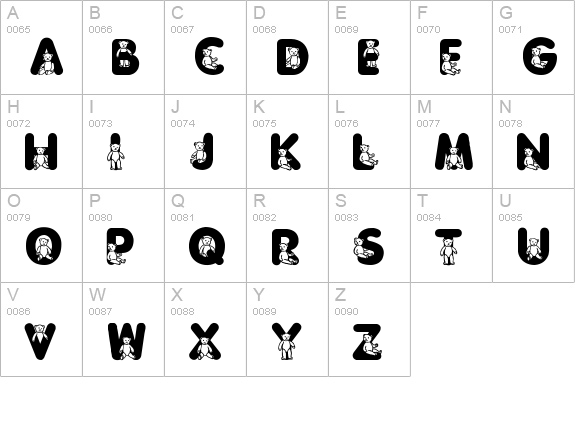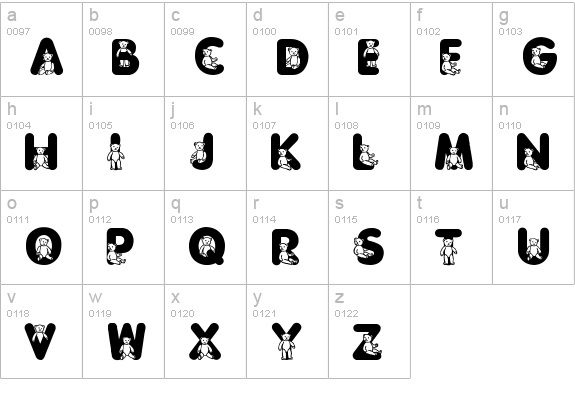
Sassys Teddys 3 Font Details
Introducing Sassys Teddys 3, a whimsical and delightful font that will add a touch of playfulness to any project. This font is perfect for those who want to bring a sense of charm and nostalgia to their designs. With its cute and cuddly letterforms, Sassys Teddys 3 captures the essence of childhood and brings it to life on the page. But what makes Sassys Teddys 3 truly special is that it is completely free! Yes, you read that right. This font is freely available to download at FontsMarket.com, allowing you to bring a smile to your audience without breaking the bank. Whether you're working on a children's book, a greeting card, or a branding project, Sassys Teddys 3 will be your go-to font for adding that extra touch of sweetness. With its smooth curves and adorable details, Sassys Teddys 3 is sure to capture the hearts of both young and old. Its versatility allows it to be used in a variety of contexts, from invitations to posters, from logos to packaging. Let your creativity soar as you explore the endless possibilities that this font offers. So why wait? Download Sassys Teddys 3 today and let it bring joy and warmth to your designs. With its freely available download at FontsMarket.com, you can start using this font right away and share your creations with the world. Don't miss out on the opportunity to add a touch of whimsy to your projects – get Sassys Teddys 3 now and let your imagination run wild!